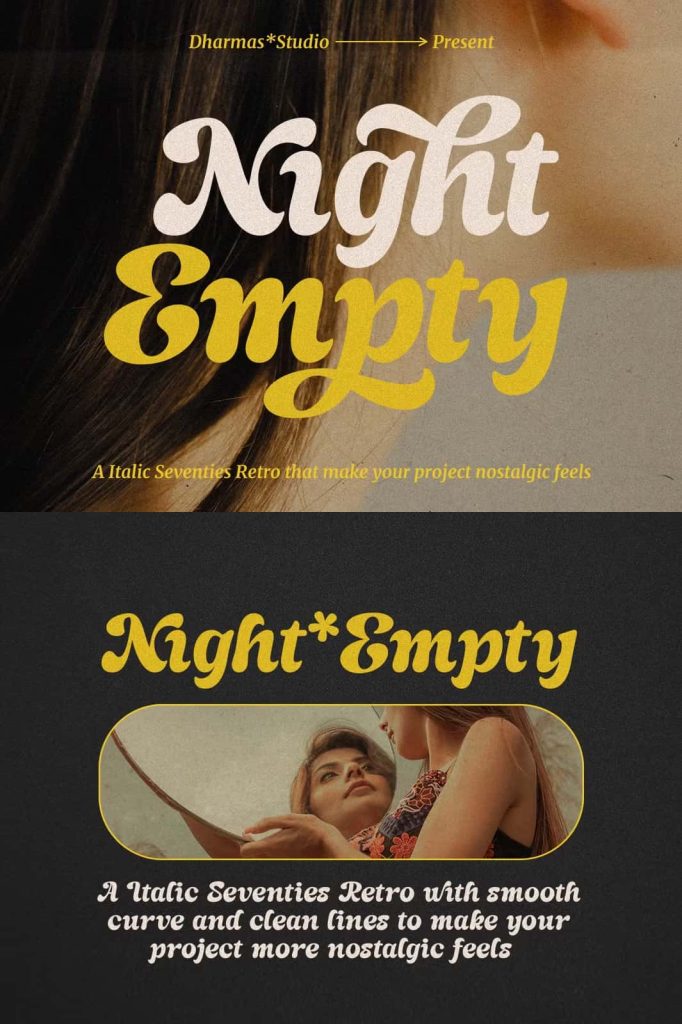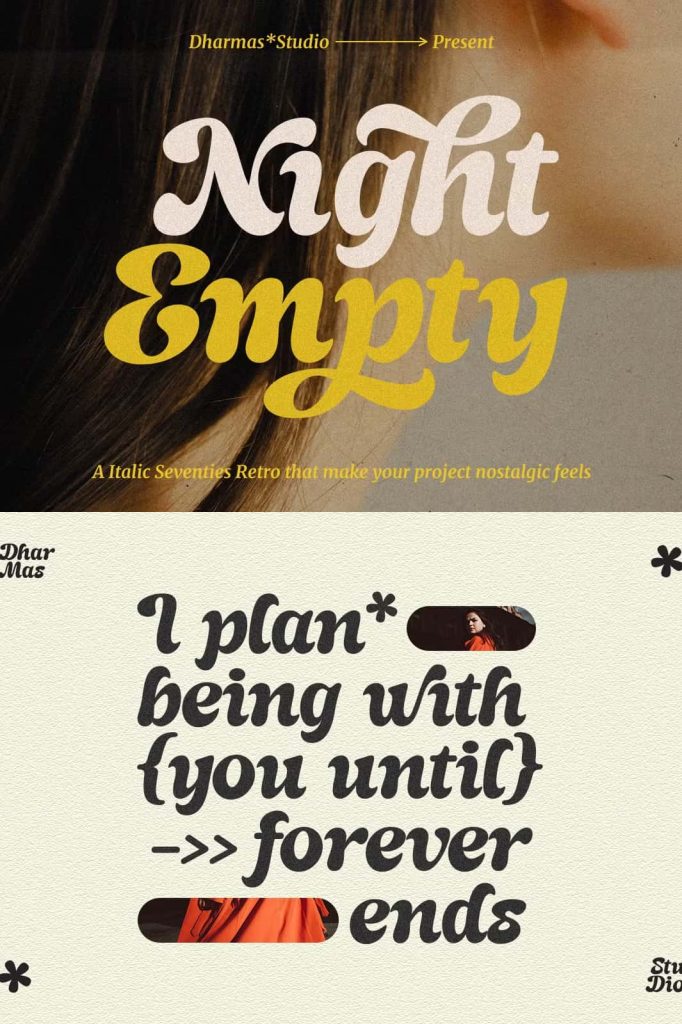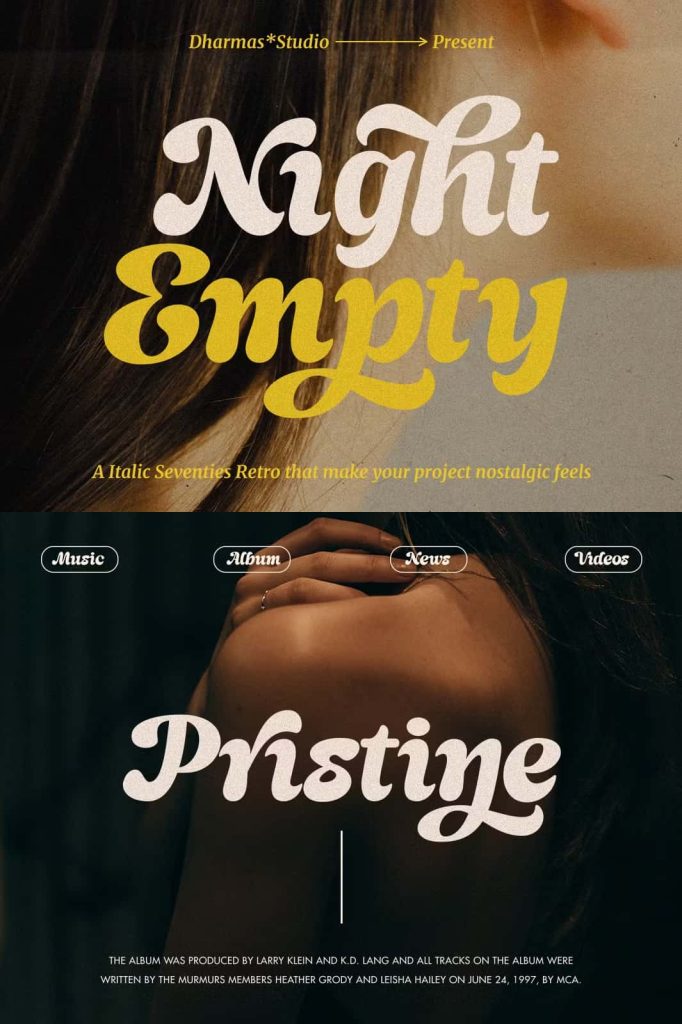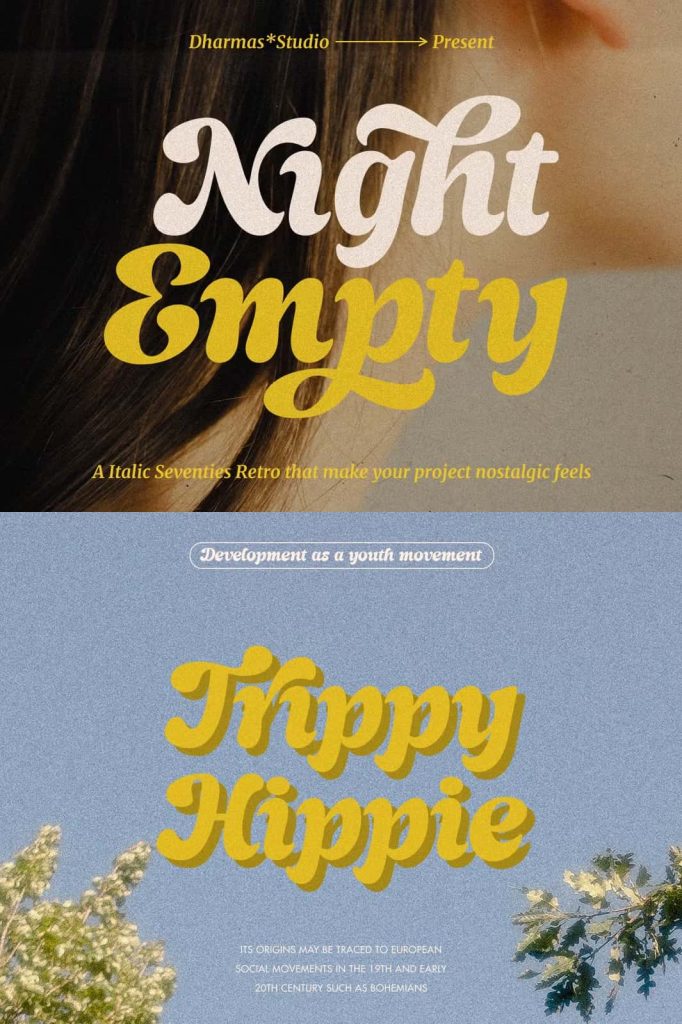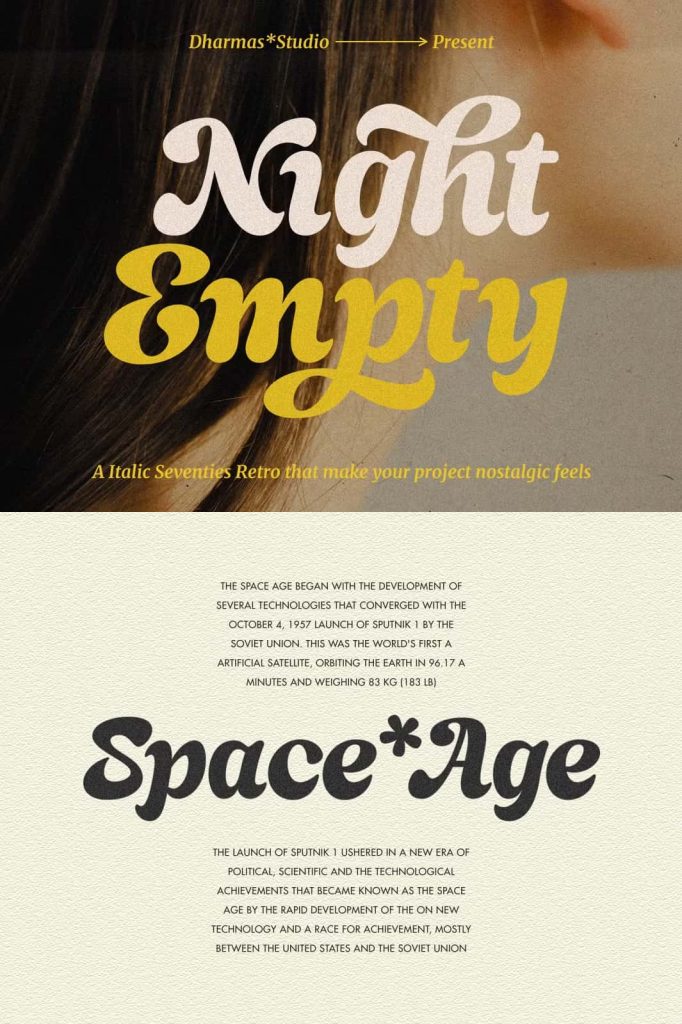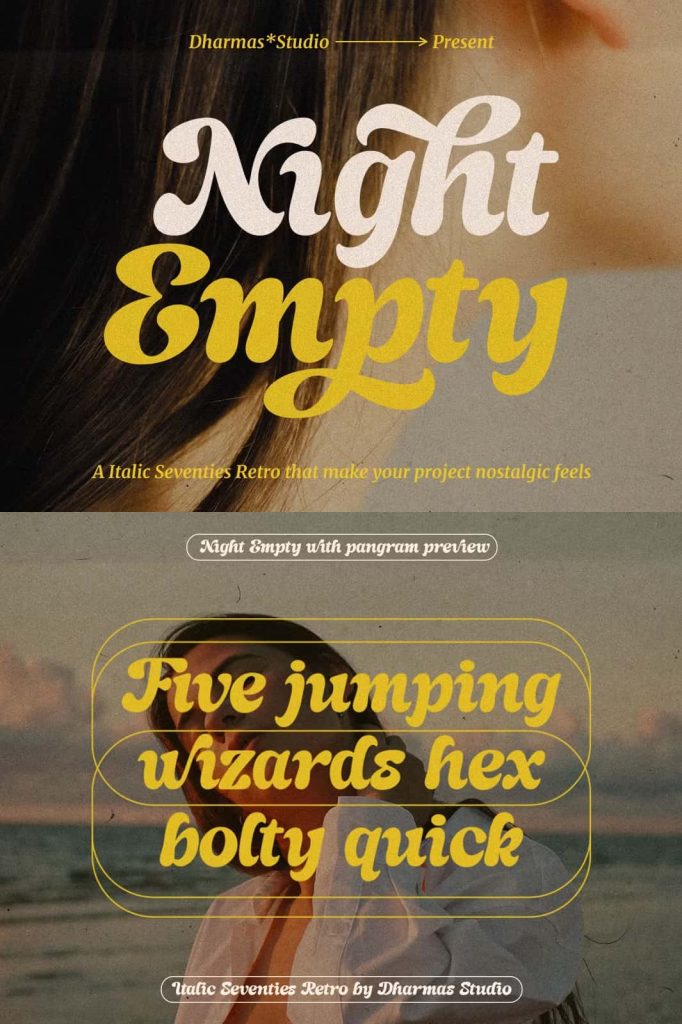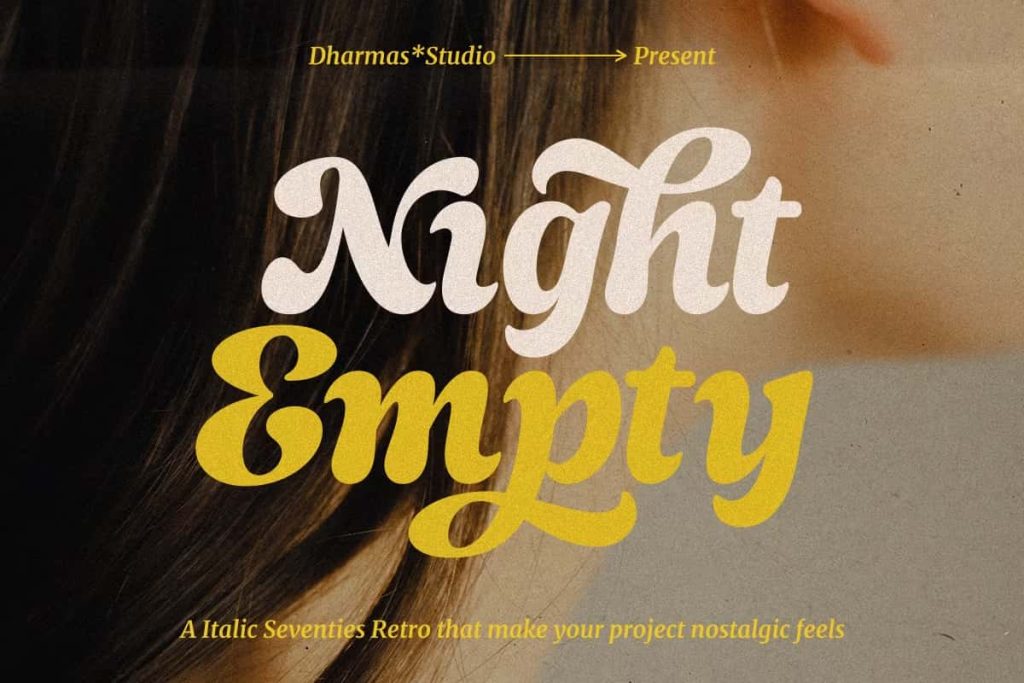
Night Empty – Italic Seventies RetroleastedJune 18, 2025Fonts Night Empty – A Italic Seventies Retro that has both retro and soft bold italic. Download